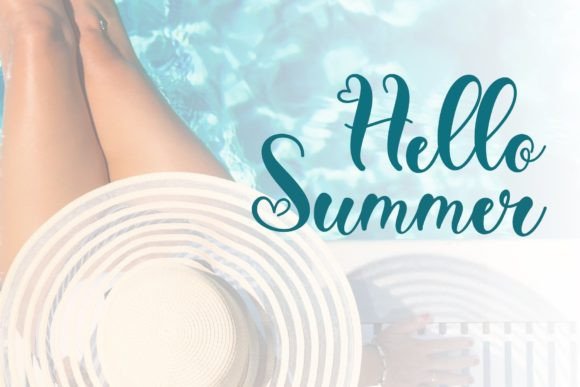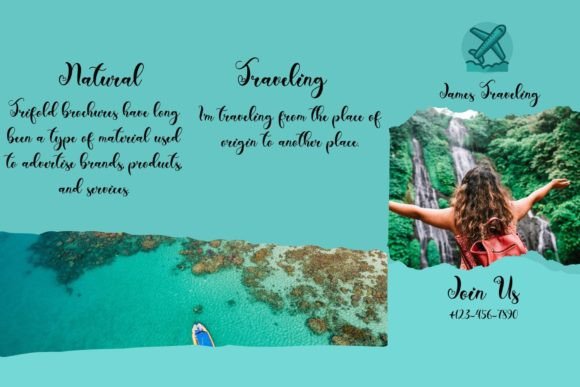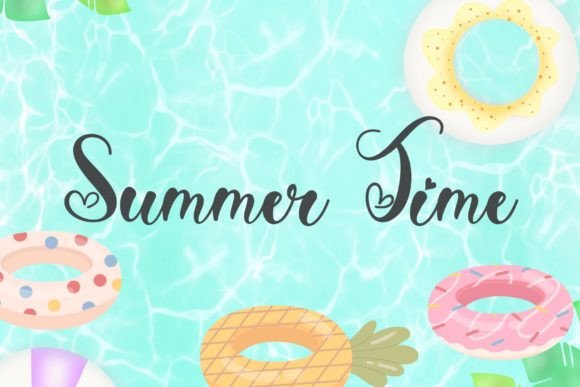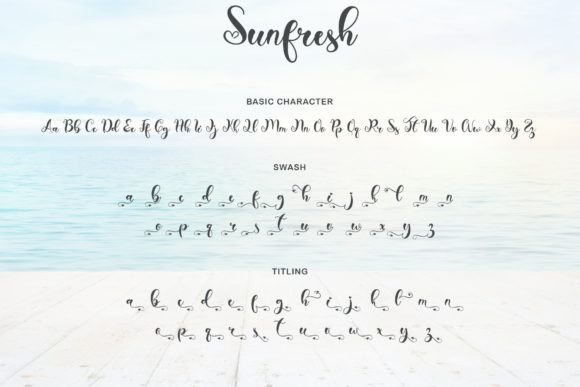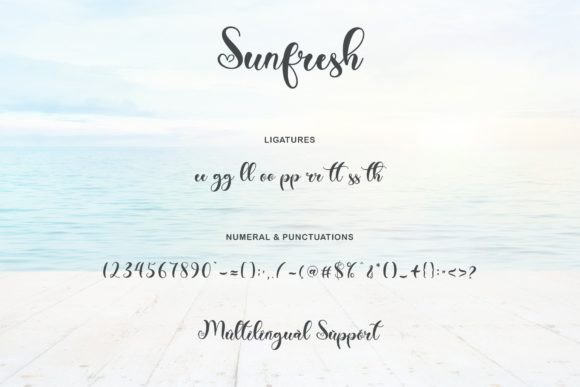
Sunfresh Font
About Sunfresh Font
“Sunfresh” is a stunning and delightful script font that radiates brightness and freshness, making it an ideal choice for a wide range of creative projects. With its cheerful and lively character, this font captures the essence of summer, making it perfect for various applications such as greeting cards, holiday promotions, blogs, social media posts, and more.
The playful and vibrant nature of “Sunfresh” makes it especially well-suited for summer-themed designs. Its elegant yet casual strokes give it a natural and handwritten appearance, adding a touch of authenticity to your projects. Whether you’re designing invitations for a summer party, creating promotional materials for a beach resort, or crafting cheerful greeting cards, “Sunfresh” will infuse your designs with a sense of joy and vitality.
The font’s versatility allows it to adapt to different design contexts, bringing a sunny and optimistic vibe to any project it graces. Its bright and fresh character makes it a popular choice for designers looking to add a lively and inviting atmosphere to their work. “Sunfresh” is not just a font; it’s a visual representation of the warm, carefree days of summer, making it the perfect choice to capture the spirit of the season in your creative endeavors.
Embrace the sunny charm of “Sunfresh” and let its delightful presence elevate your summer projects, spreading happiness and positivity to all who encounter your designs. Whether you’re creating digital content, print materials, or any other visual communication, this font will infuse your work with a refreshing and delightful energy, leaving a lasting impression on your audience.